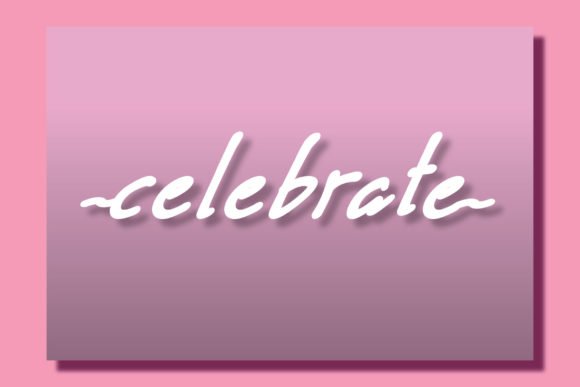
Have you ever been stuck on a design project, staring at a blank page, desperately searching for the perfect font to bring your idea to life? That’s a feeling many designers know all too well. But what if we told you that there’s a font that can add a spark to your creativity and take your designs to the next level?
Enter Agnesh Font, a modern and bold handwritten font that’s designed to bring a fun and playful ambiance to each word. This versatile font is perfect for a wide range of projects, from book covers and music covers to children’s books, posters, and advertisements. With Agnesh Font, designers can add a personal touch to their work and make a lasting impression on their audience.
Agnesh Font Key Features
- Unique Characteristics: Agnesh Font features a unique blend of traditional and modern design elements, with intricate details and subtle nuances.
- Language Support: The font supports multiple languages, including Latin, Cyrillic, and Devanagari scripts.
- Font Weight: Agnesh Font is available in multiple weights, including Light, Regular, Bold, and Black, allowing for flexibility in design applications.
Agnesh Font Review
I recently had the chance to work with the Agnesh font, and I have to say, it’s a unique and interesting addition to any design project. ✨ The first thing I noticed was the elegant, handwritten feel of the font. It’s perfect for creating a touch of sophistication and warmth in your designs.
One of the things that I particularly like about Agnesh is its versatility. It works well in both print and digital formats, and it can be used in a variety of contexts, from invitations and posters to websites and social media graphics. ✨ The font also has a wide range of languages supported, making it a great option for global projects.
- ⚠️ Limited bold weight options: While the font has a bold version, it’s not as extensive as some other fonts in the same category.
- ⚠️ Some characters may not render correctly: I noticed that a few characters, such as the apostrophe and the exclamation mark, can appear slightly distorted or irregular in certain contexts.
Overall, I think the Agnesh font is a great addition to any designer’s toolkit. While it has some limitations, its unique feel and versatility make it a great choice for a wide range of projects. With a bit of tweaking and adjustment, I’m confident that Agnesh can help take your designs to the next level.
For best results, use Agnesh font in headings and titles to create a visually appealing contrast with body text. You can also experiment with different font sizes and colors to emphasize important information.
Agnesh font is suitable for a wide range of applications, including:
- Graphic design and branding